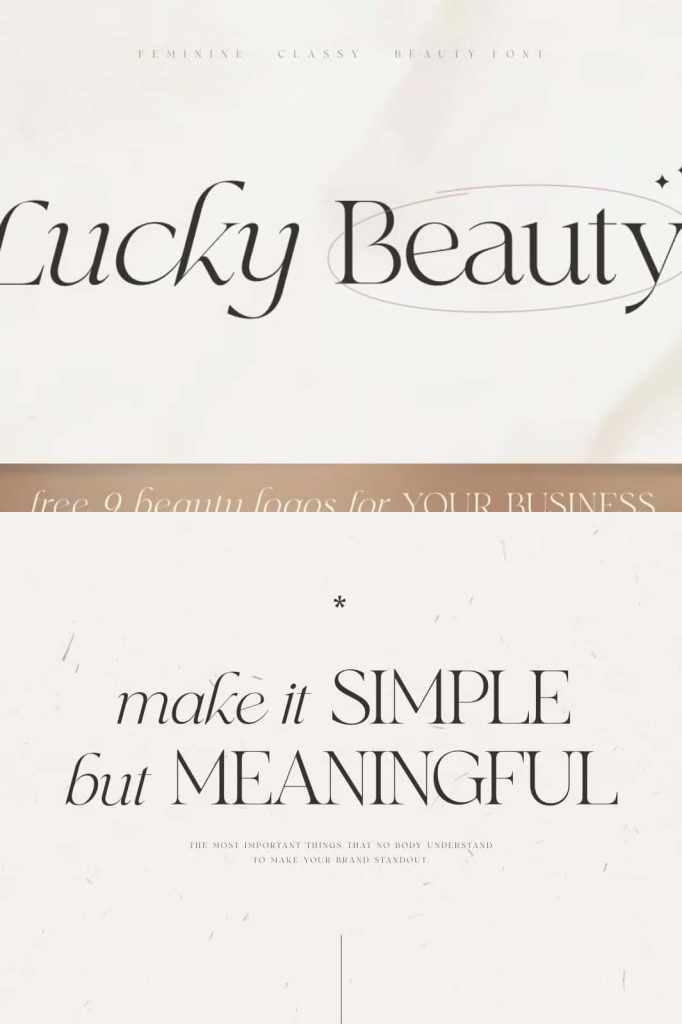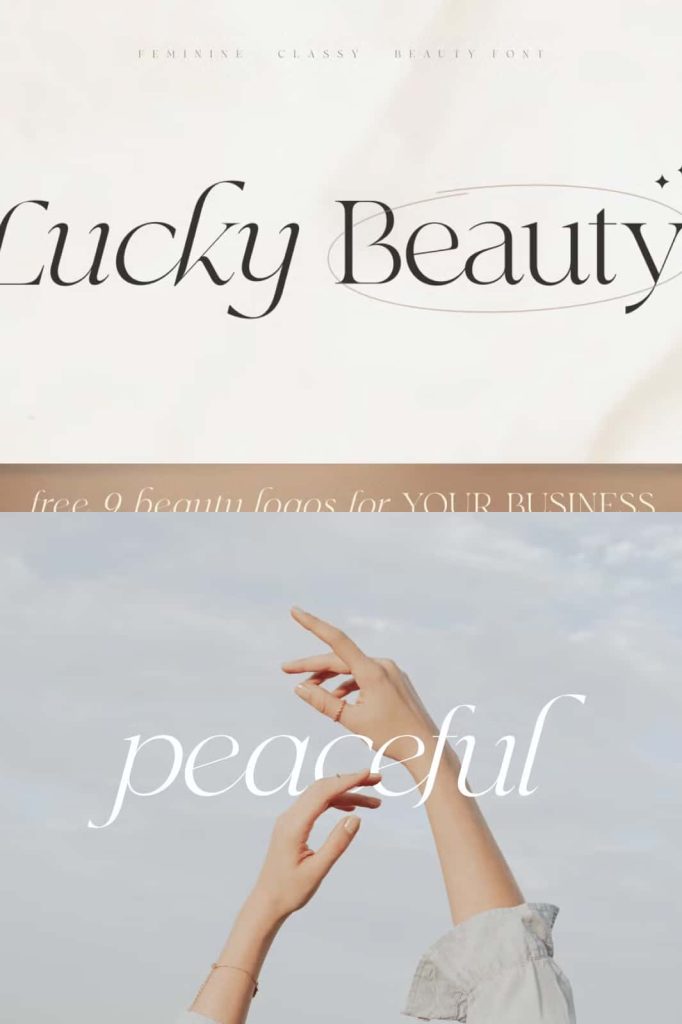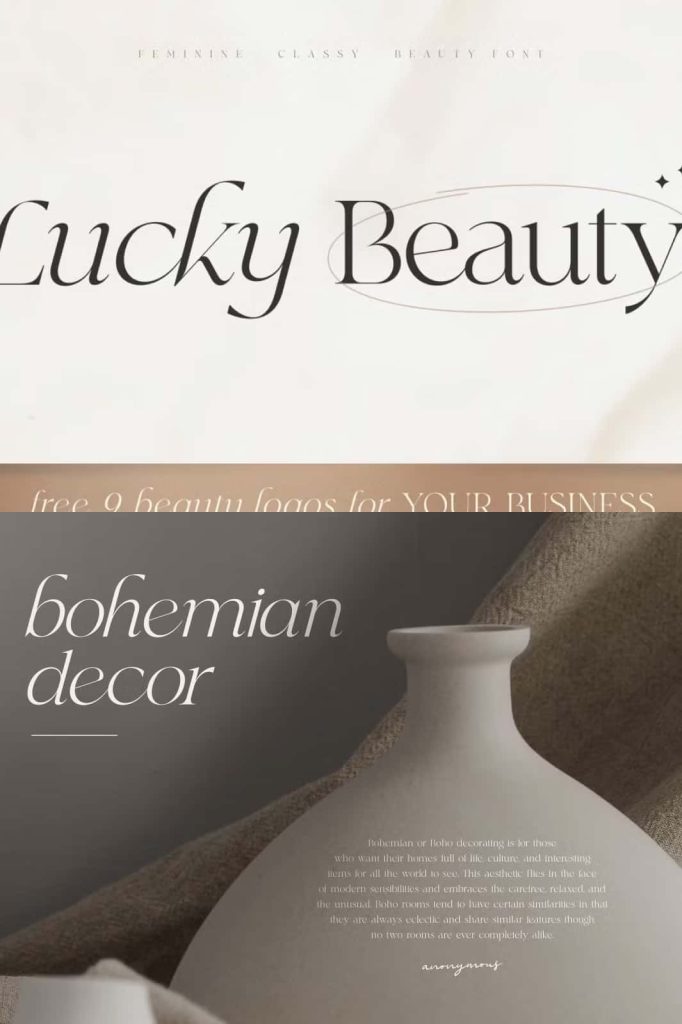
Lucky Beauty – Styled Classy SerifleastedJanuary 15, 2025Fonts Lucky Beauty is a Styled Classy Beauty Font pairing between regular and italic style. Download